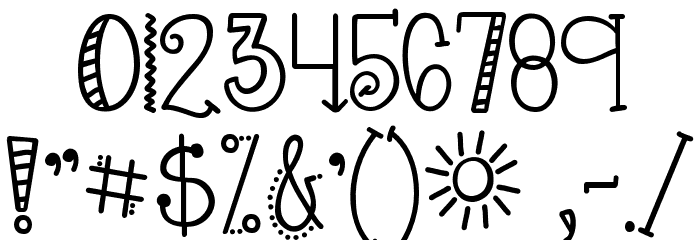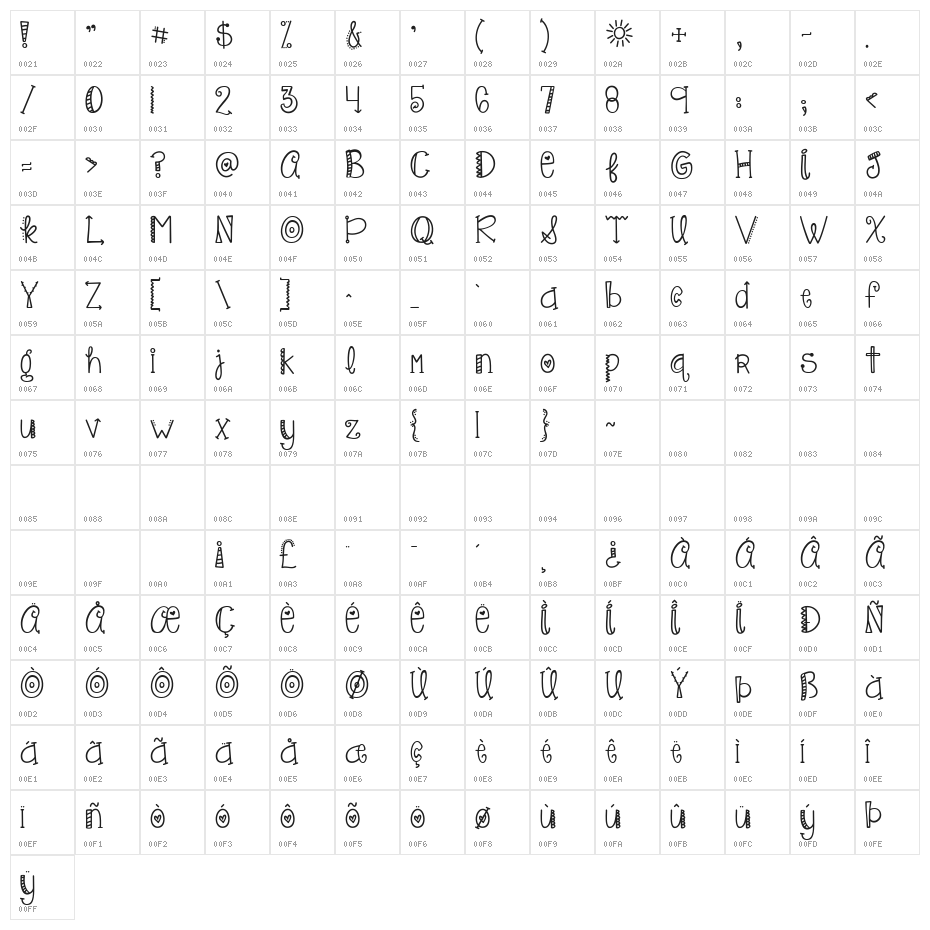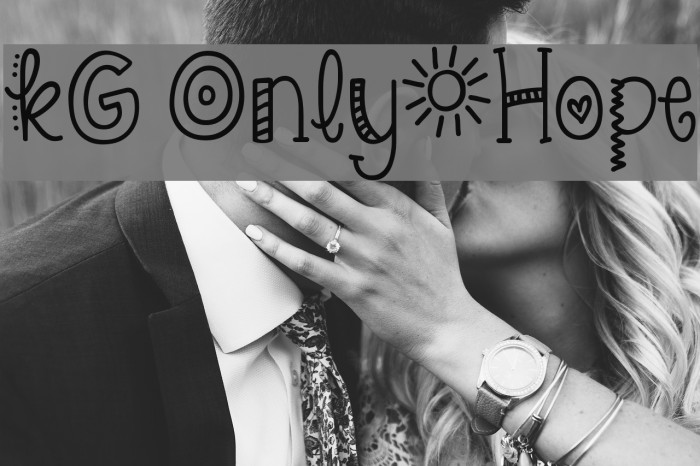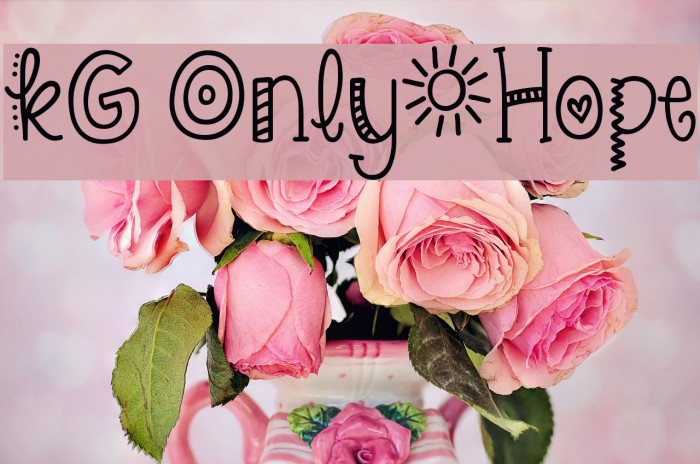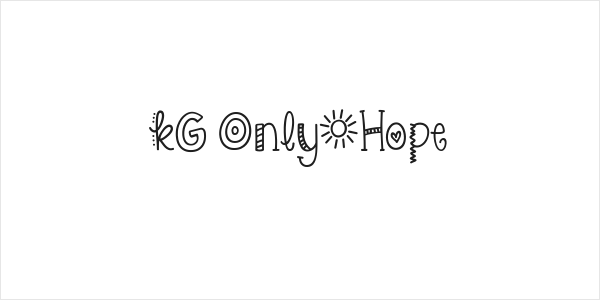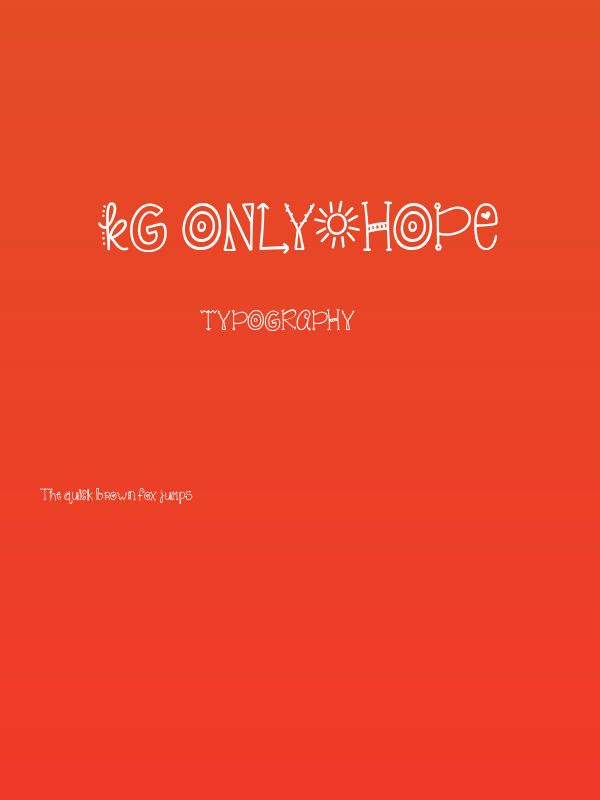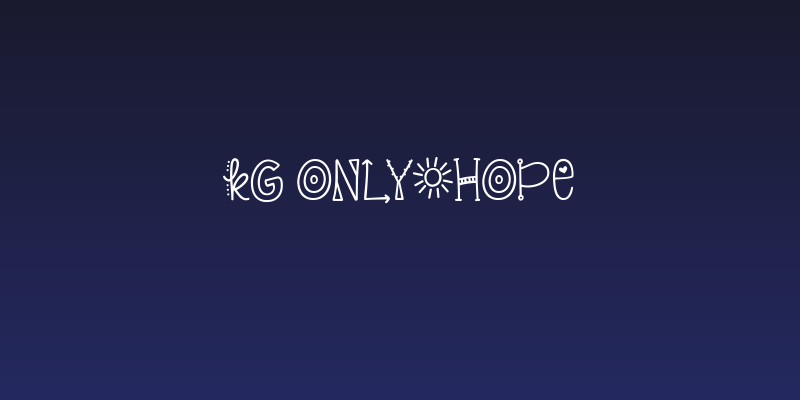
KG Only*Hope Font
KG Only*Hope Description
This whimsical and playful font features a unique blend of decorative elements and bold strokes. Each character is adorned with creative embellishments such as dots, arrows, and swirls, giving it a lively and dynamic appearance. The uppercase letters are particularly expressive, with varying line thicknesses and imaginative designs that make each letter stand out. The lowercase letters maintain a similar playful style, ensuring consistency throughout. Numbers and special characters are equally creative, incorporating the same decorative motifs. This font is perfect for projects that require a fun and engaging visual style.